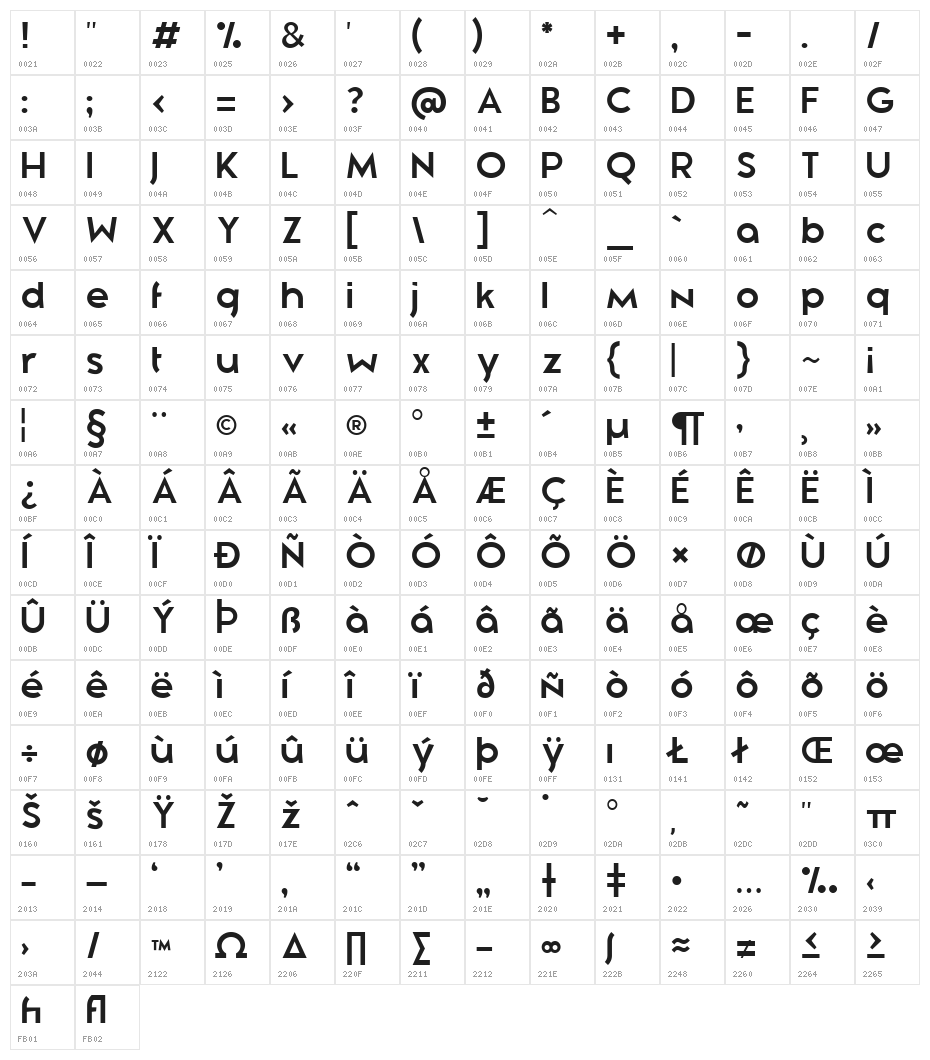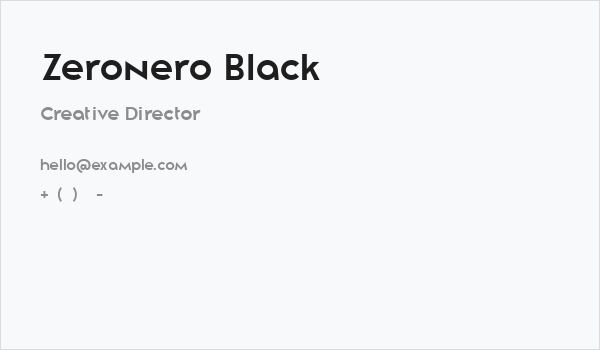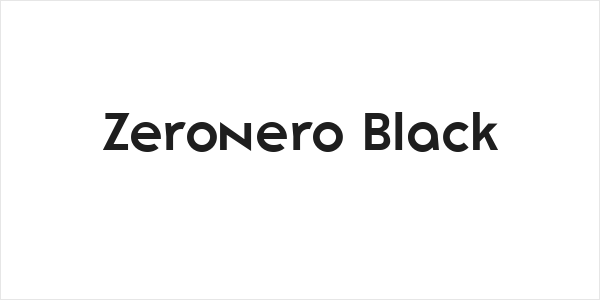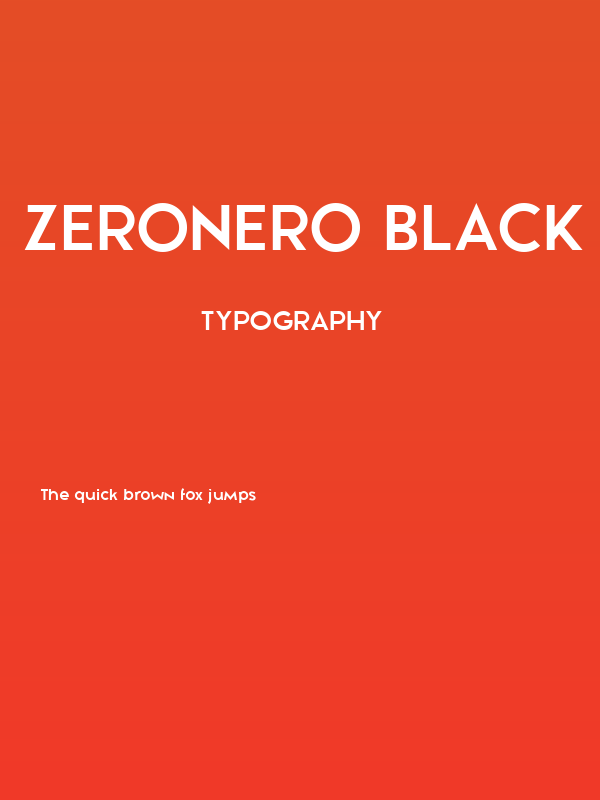
Zeronero Black Font
Zeronero Black Description
This typeface features a bold and modern aesthetic with clean, geometric lines and sharp angles. The uppercase letters are uniform in height, creating a strong visual impact, while the lowercase letters maintain a consistent style with slightly rounded edges for a softer touch. The numerals and special characters complement the alphabet with a cohesive design, ensuring versatility across various applications. The overall appearance is sleek and contemporary, making it suitable for projects that require a strong, assertive look.
| Proposed Projects | Ideal for branding, advertising, headlines, and digital media where a strong, modern presence is desired. |